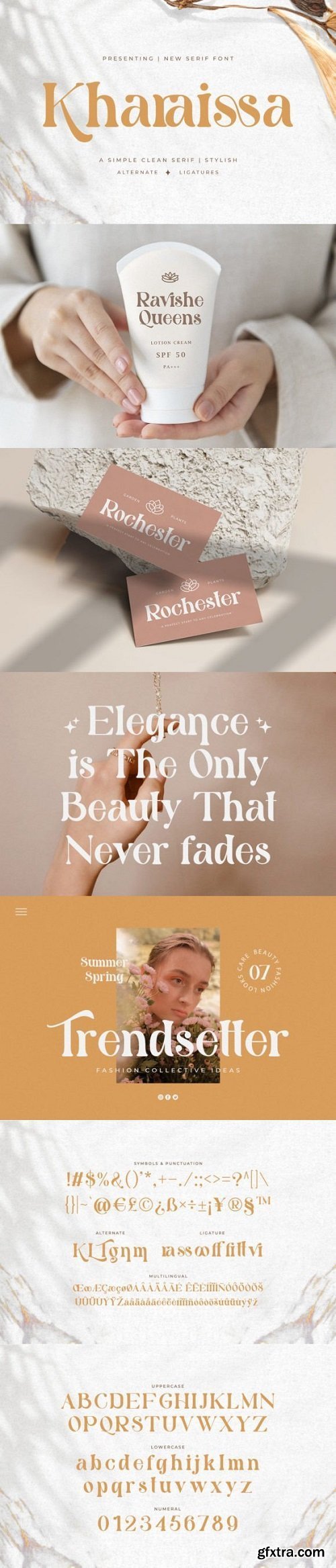
卡哈里萨字体
Kharaissa is a clean serif typeface that blends traditional influences into a contemporary aesthetic.
Elegantly crafted and easily be matched to an incredible large set of projects.
Use this font to achieve an exquisite, yet subtle look and maximum versatility.